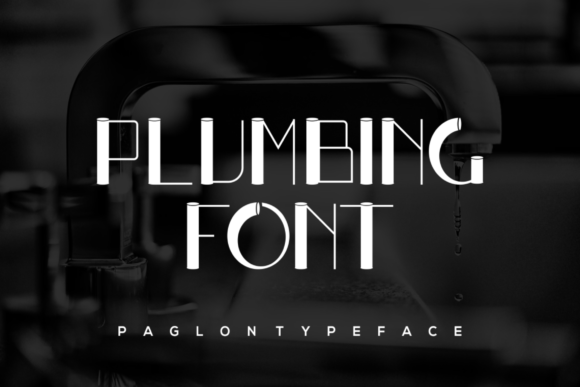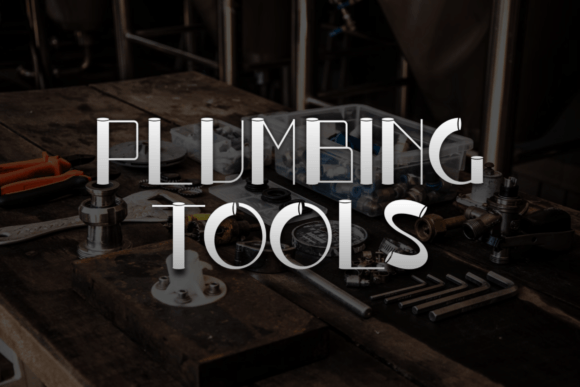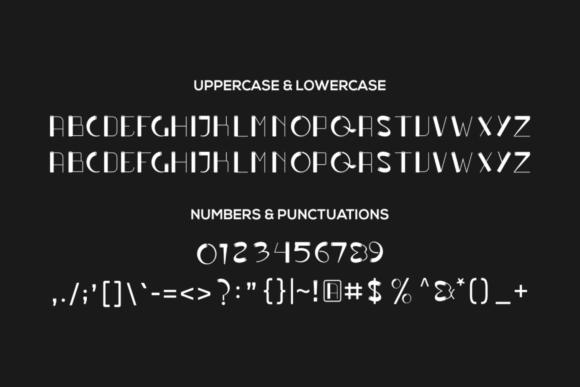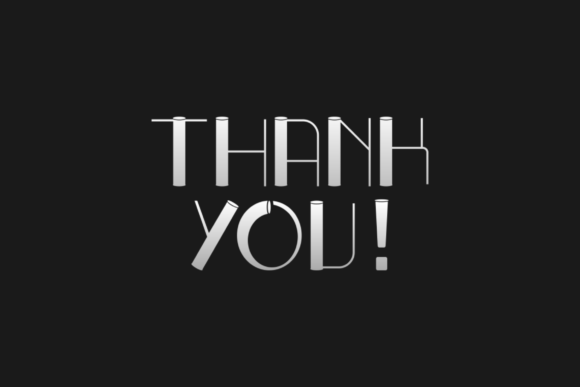
Introduction to Paglon Font
Paglon is a modern, bold, and authentic sans serif font suitable for any branding projects such as logos, T-shirt printing, Esports, and many more.
Add it to your lovely creations, and it will be outstanding in a wide range of contexts .
Key Features of Paglon Font